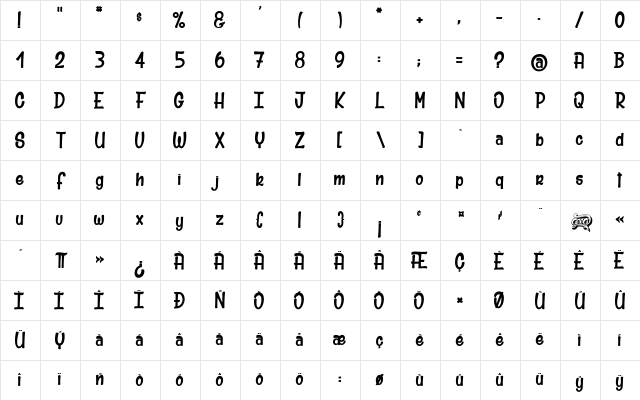
Mr Sunshine 2 Regular
Foundry: dcoxy Medina Gregory
Designer: dcoxy Medina Gregory
Design Context for Mr Sunshine 2
Mr Sunshine 2 is a composed and adaptable typeface that performs quietly and consistently across a wide range of design contexts.